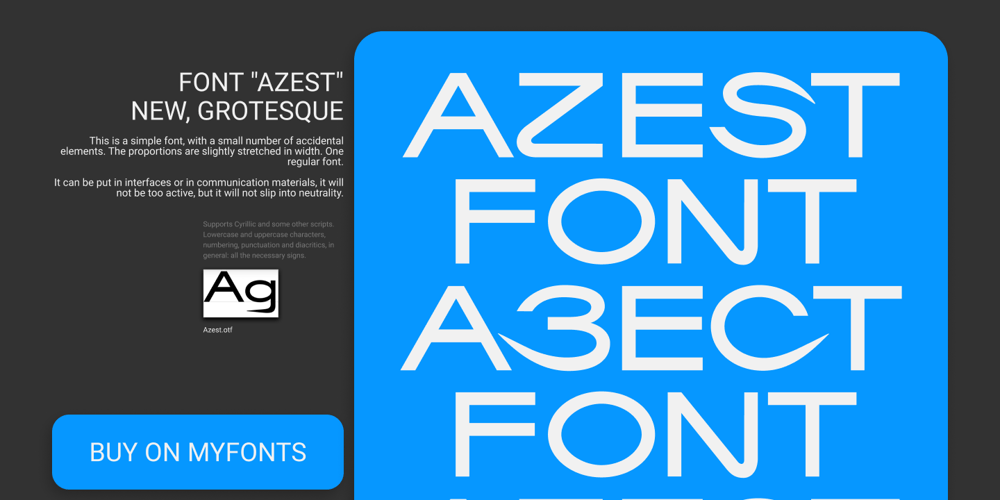
Azest Font Family was designed by Victor Pesotsky and published by Pesotsky Victor. Azest contains 1 styles and family package options. “AZEST” FONT — NEW, GROTESQUEThis is a simple font, with a small number of accidental elements. The proportions are slightly stretched in width. One regular font. It can be put in interfaces or in communication materials, it will not be too active, but it will not slip into neutrality.Supports Cyrillic and some other scripts. Lowercase and uppercase characters, numbering, punctuation and diacritics, in general: all the necessary signs.